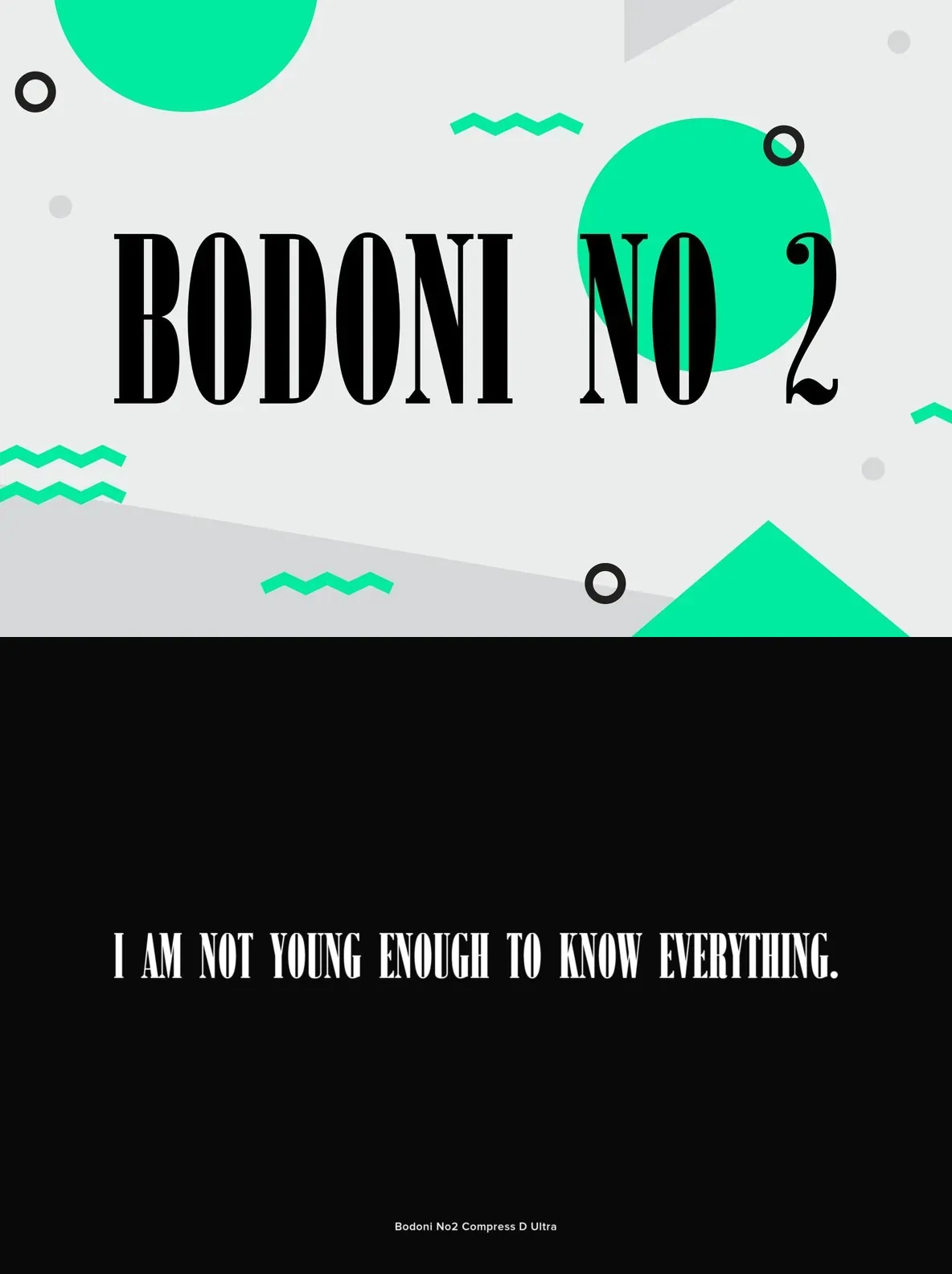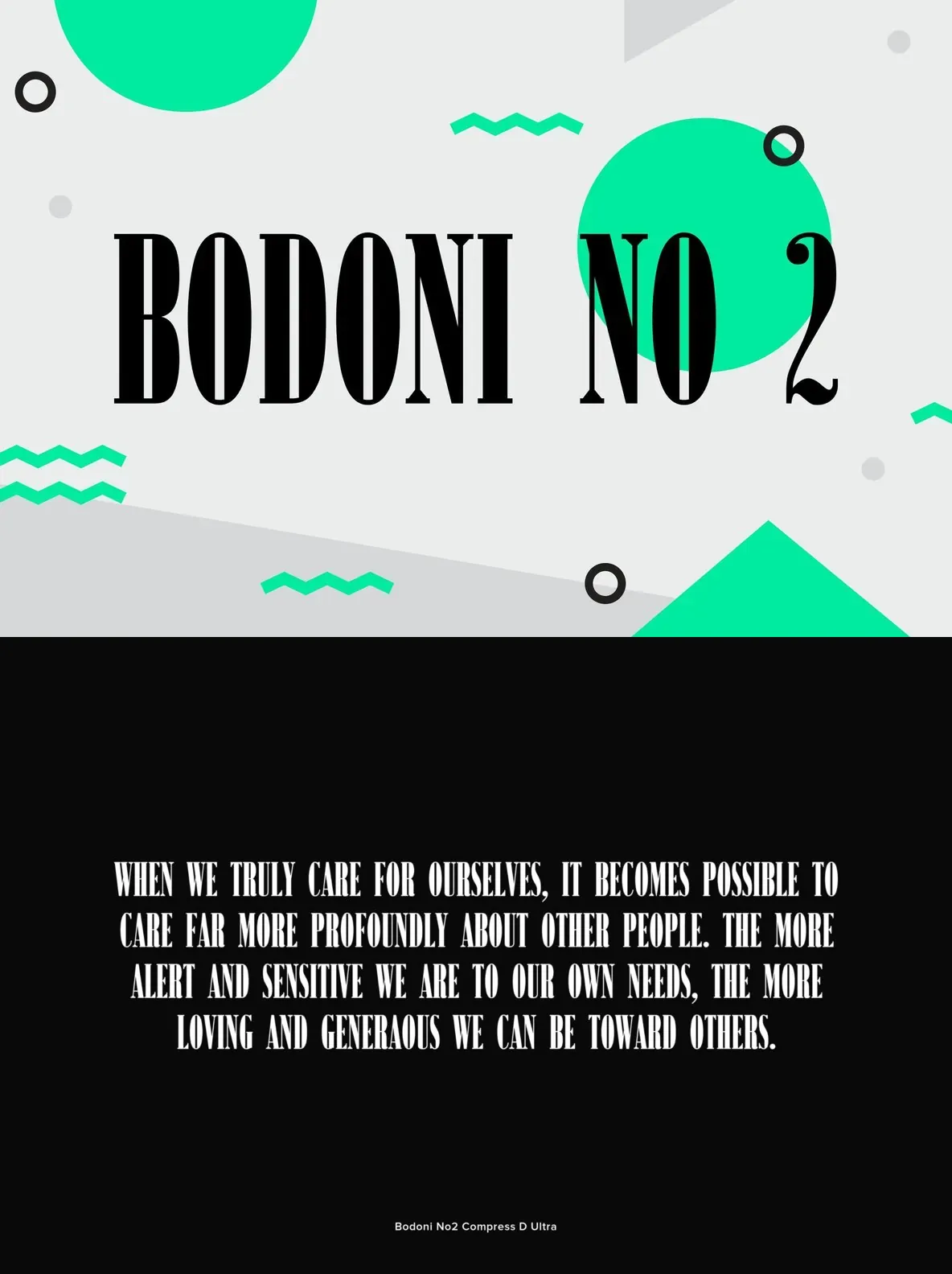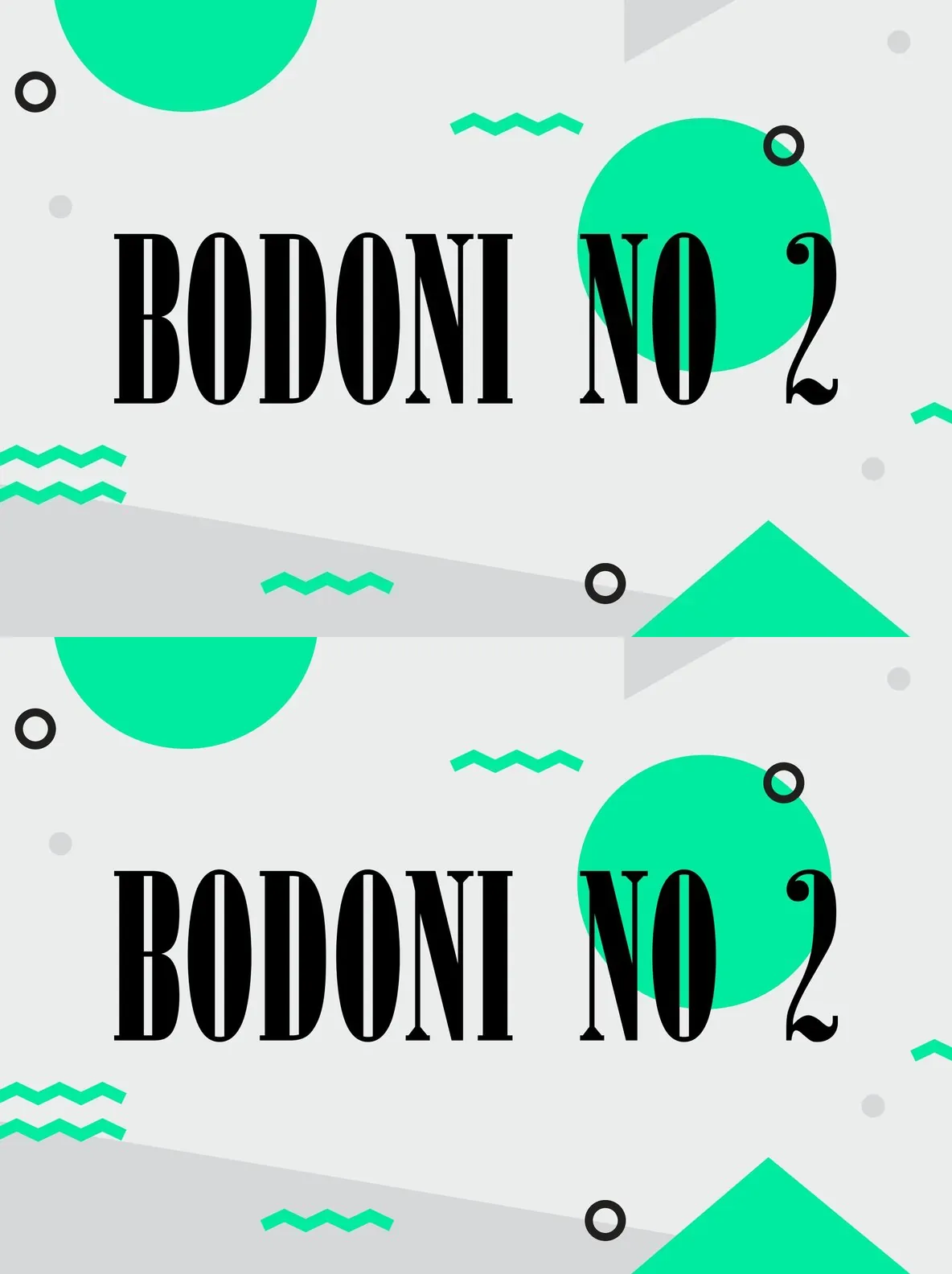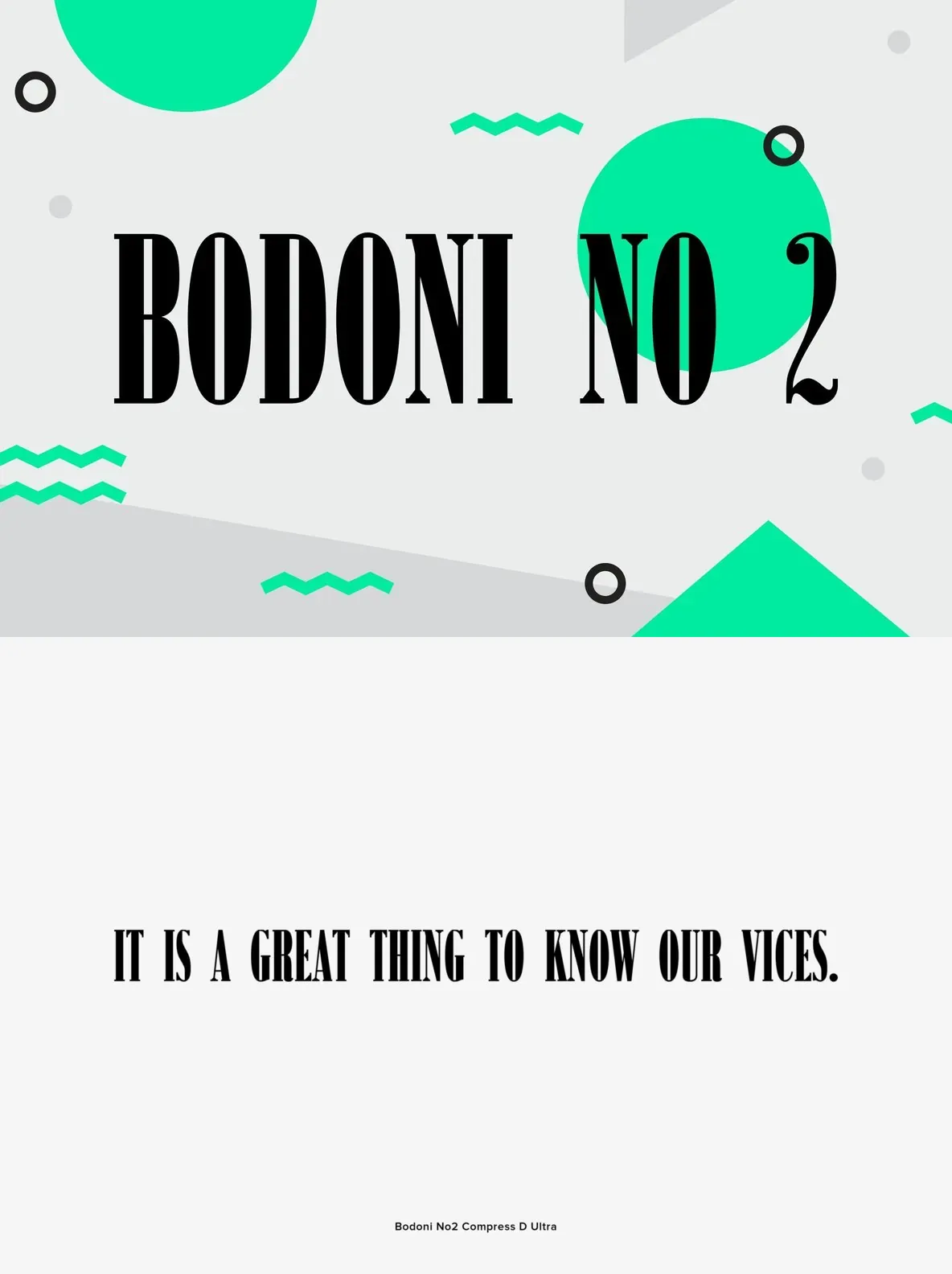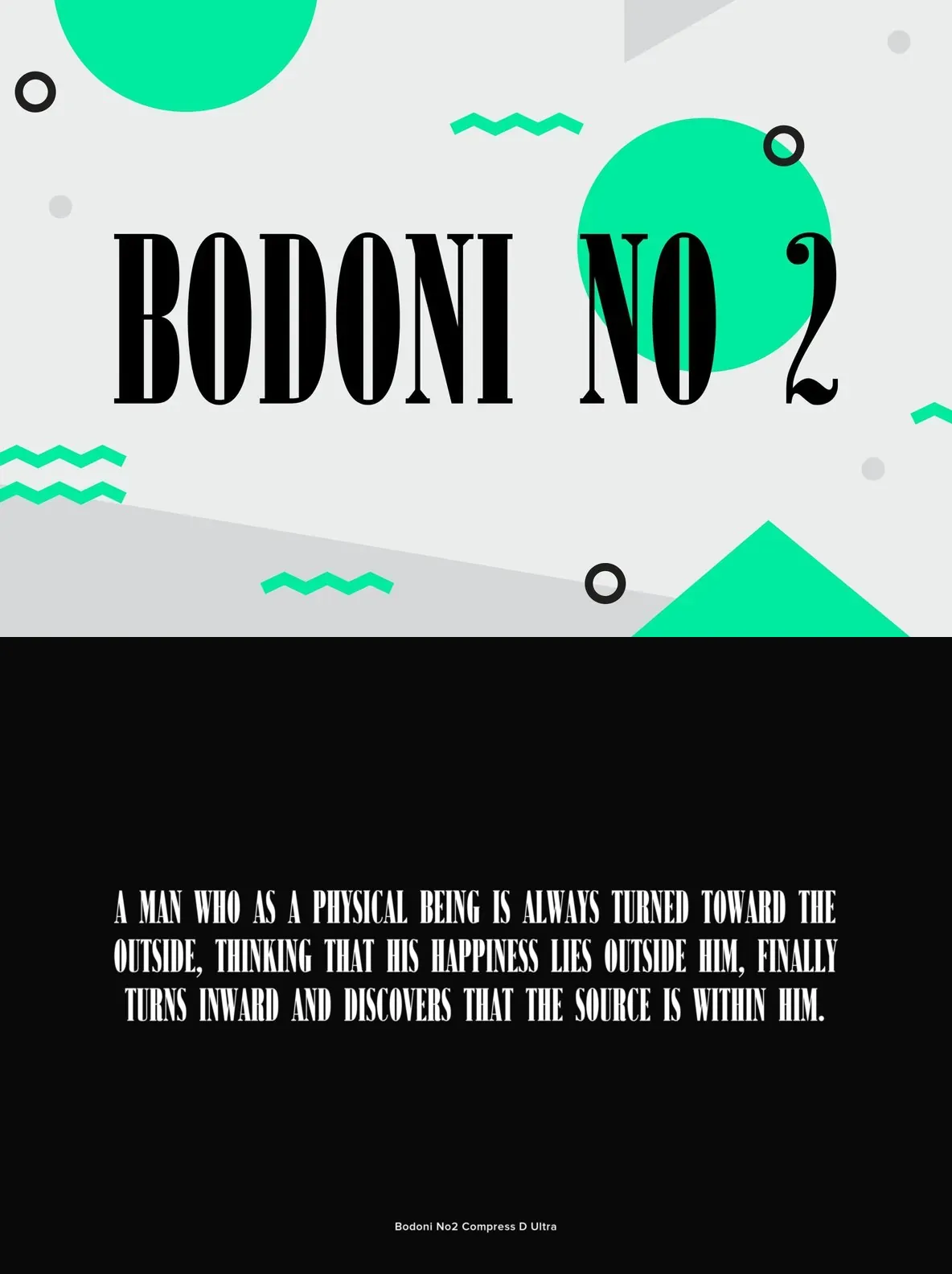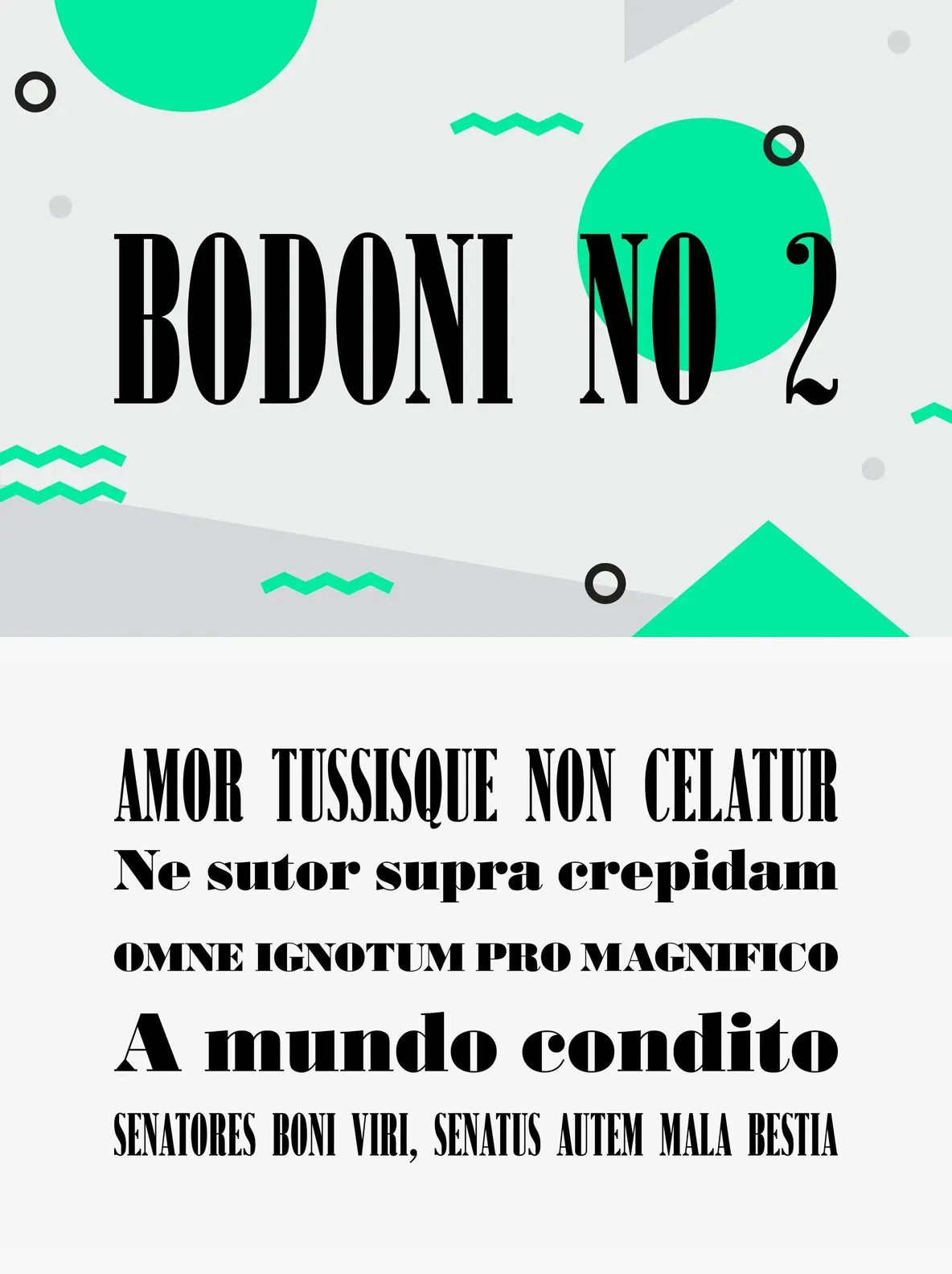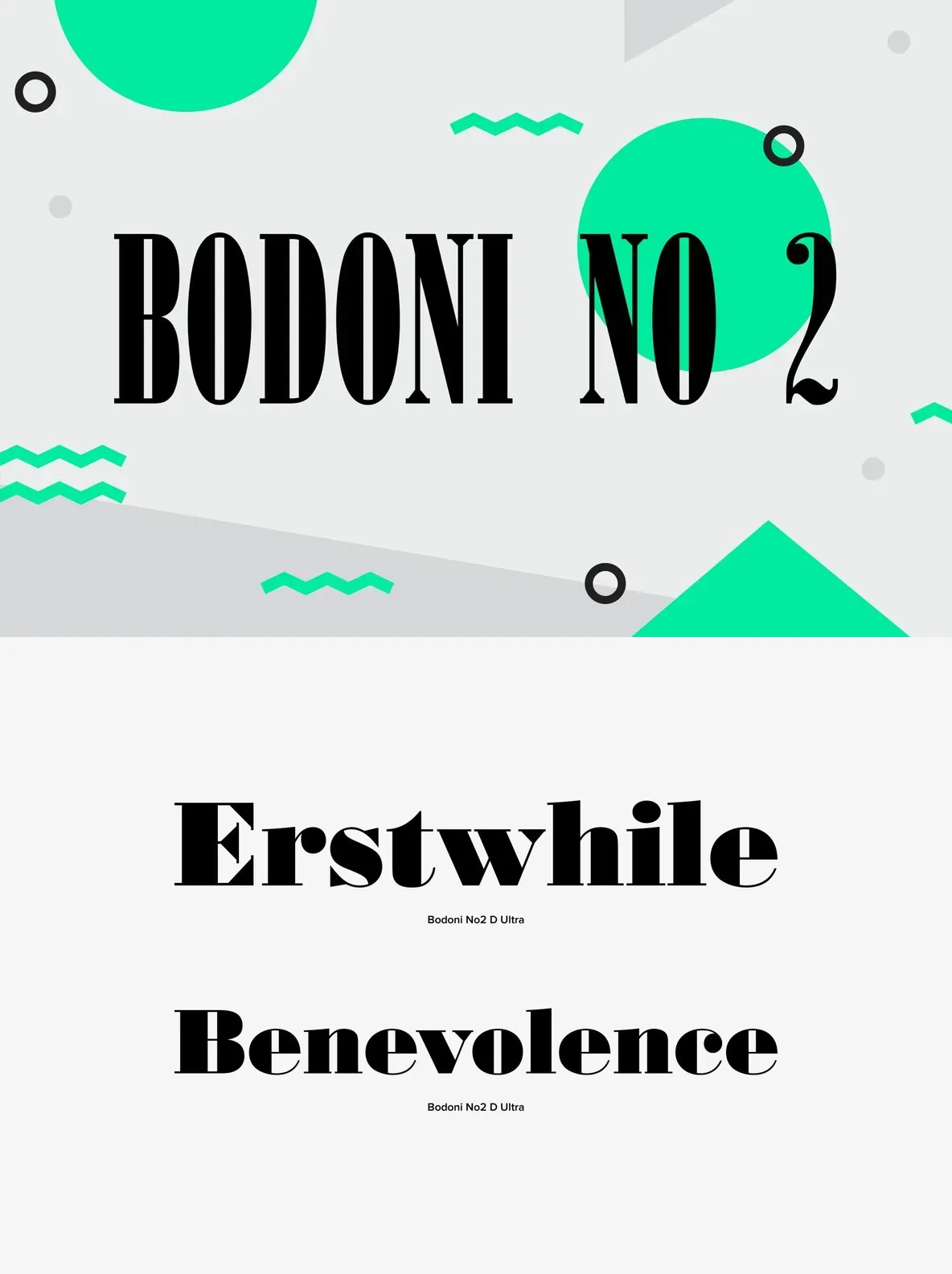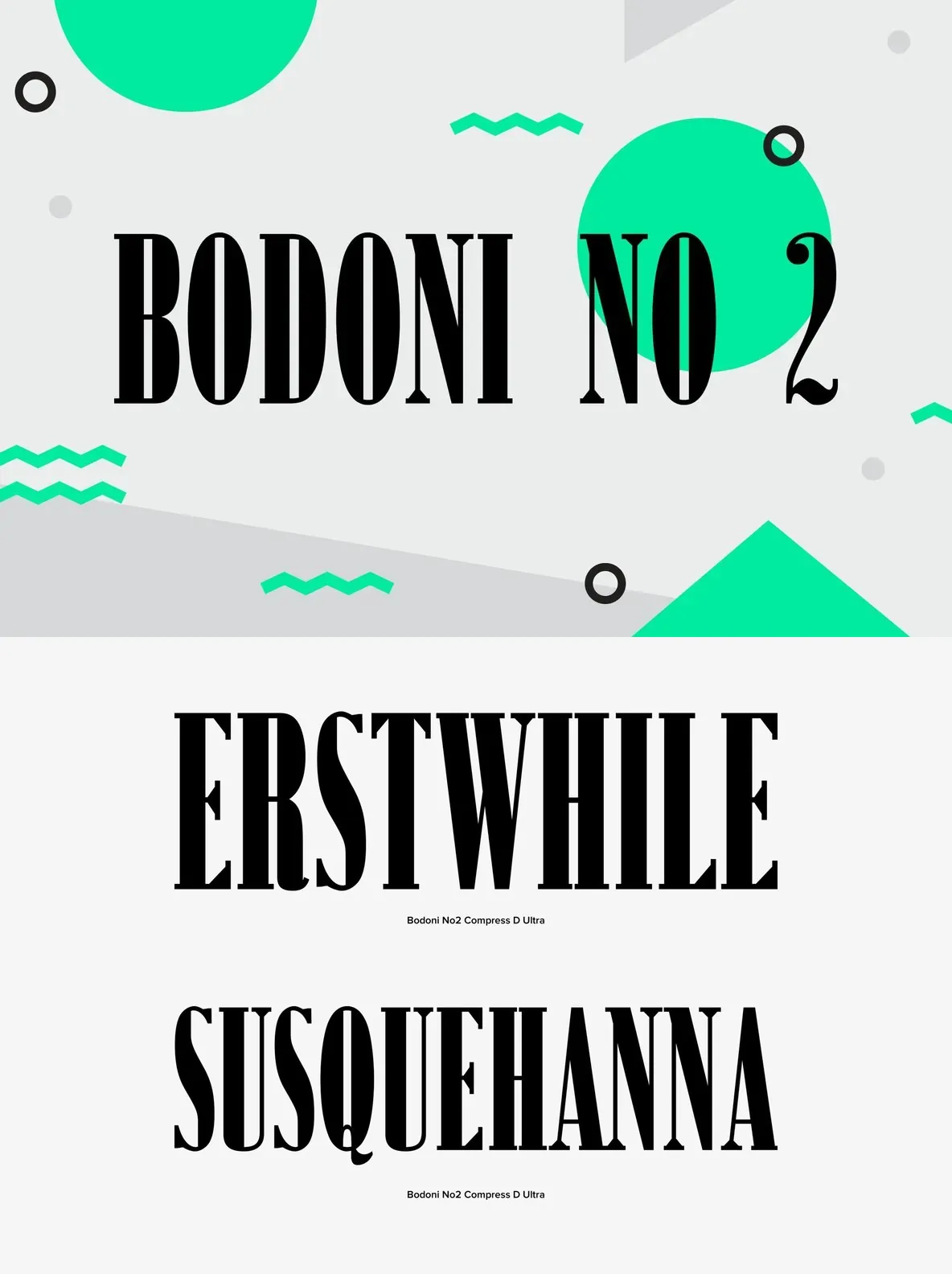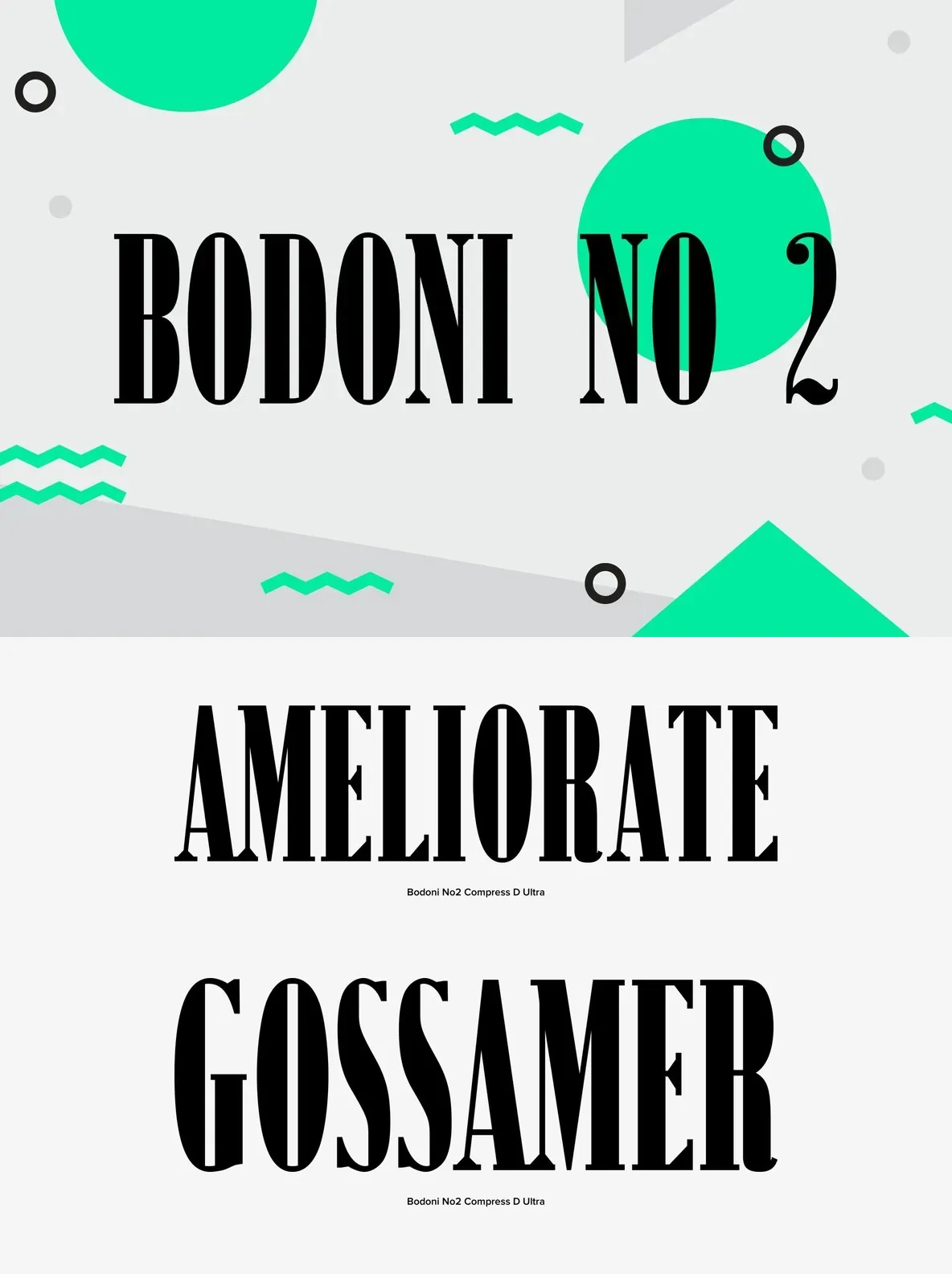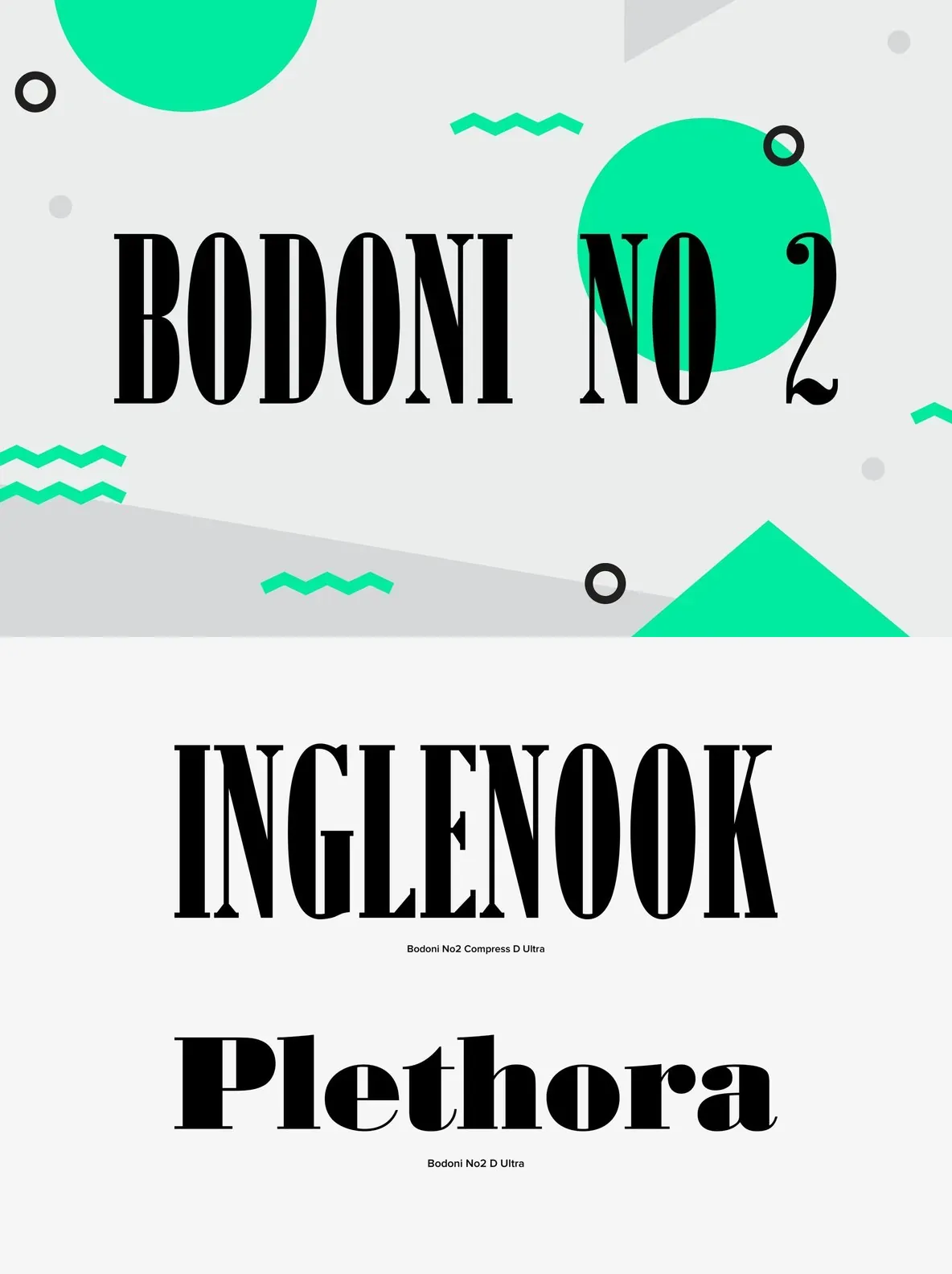
Bodoni No 2 Typeface
Bodoni No 2 is a refined serif typeface originally designed by Morris Fuller Benton in 1928. Known for its classic elegance and high-contrast letterforms, Bodoni No 2 offers a timeless choice for editorial design, branding, and sophisticated layouts.
This version extends comprehensive language coverage, supporting Western and Eastern European languages, Turkish, Baltic, and Romanian. The versatile character set ensures broad international usability, making it a practical solution for global design needs.
Key Features
Elegant, high-contrast serif design
Extensive language support for West, East, Turkish, Baltic, and Romanian
Well-suited for editorial, branding, and print applications